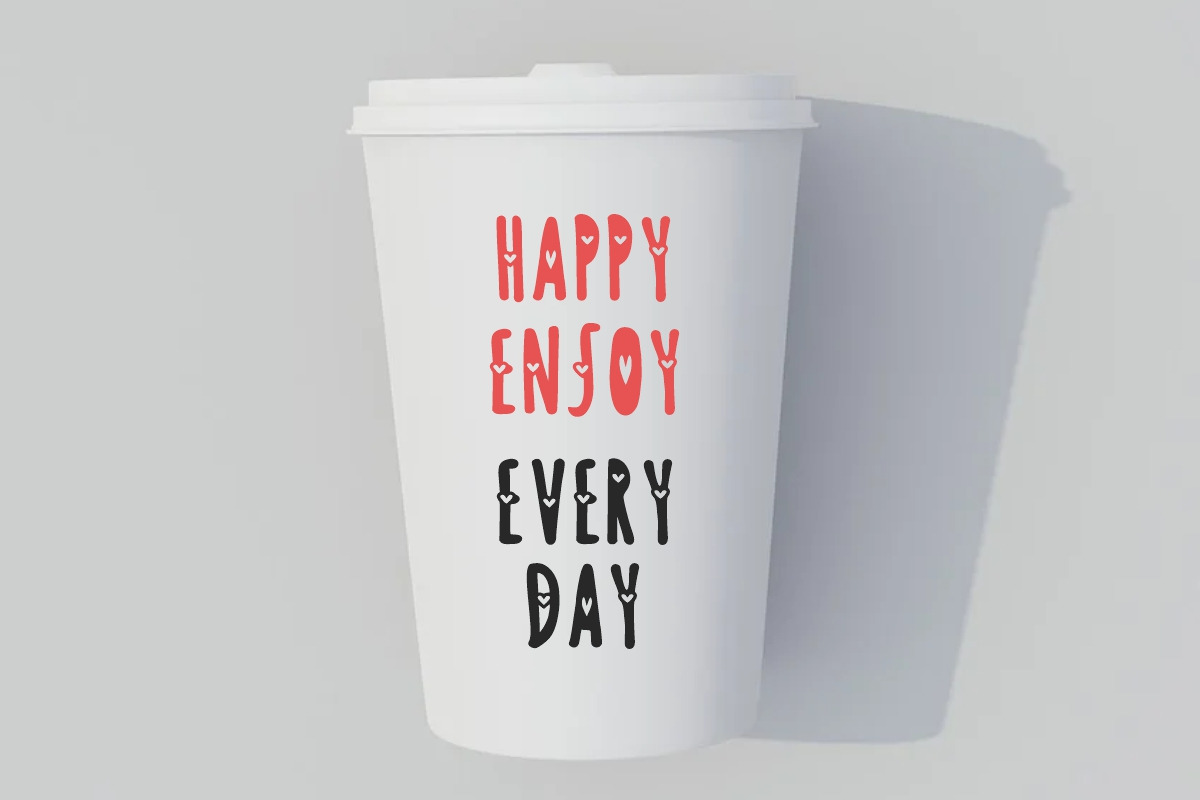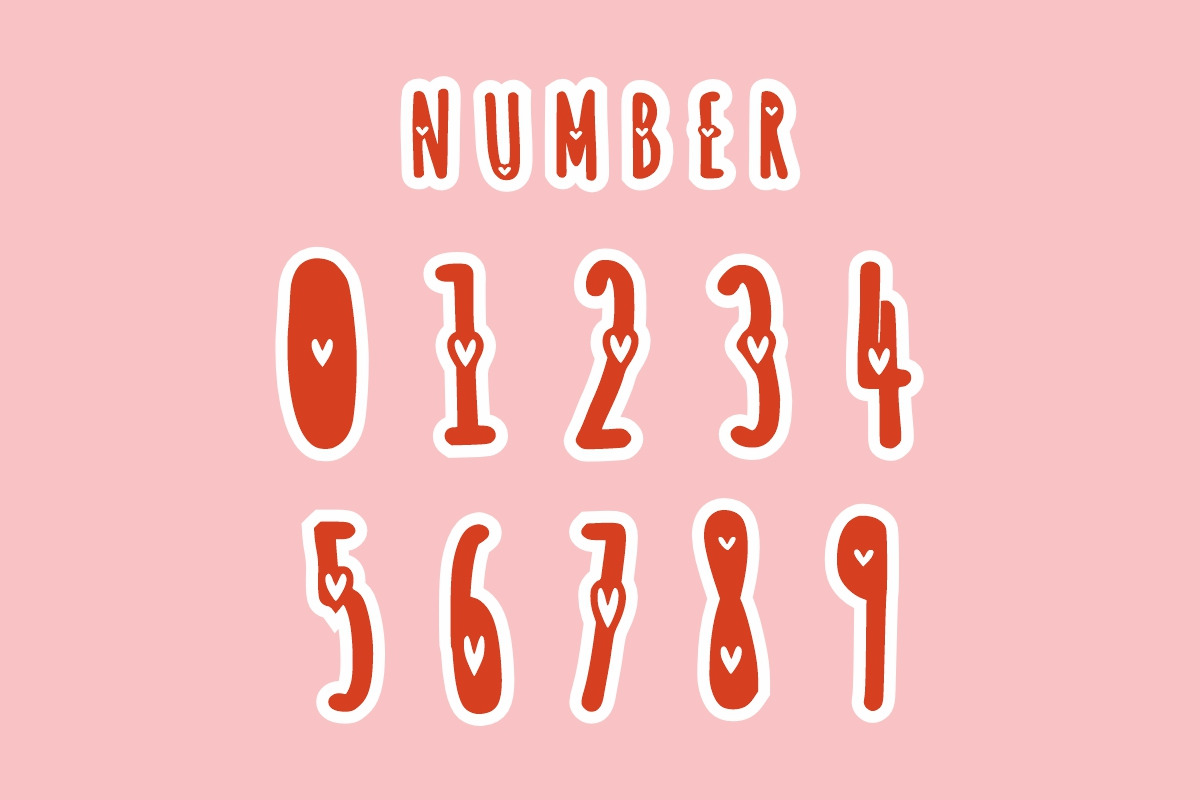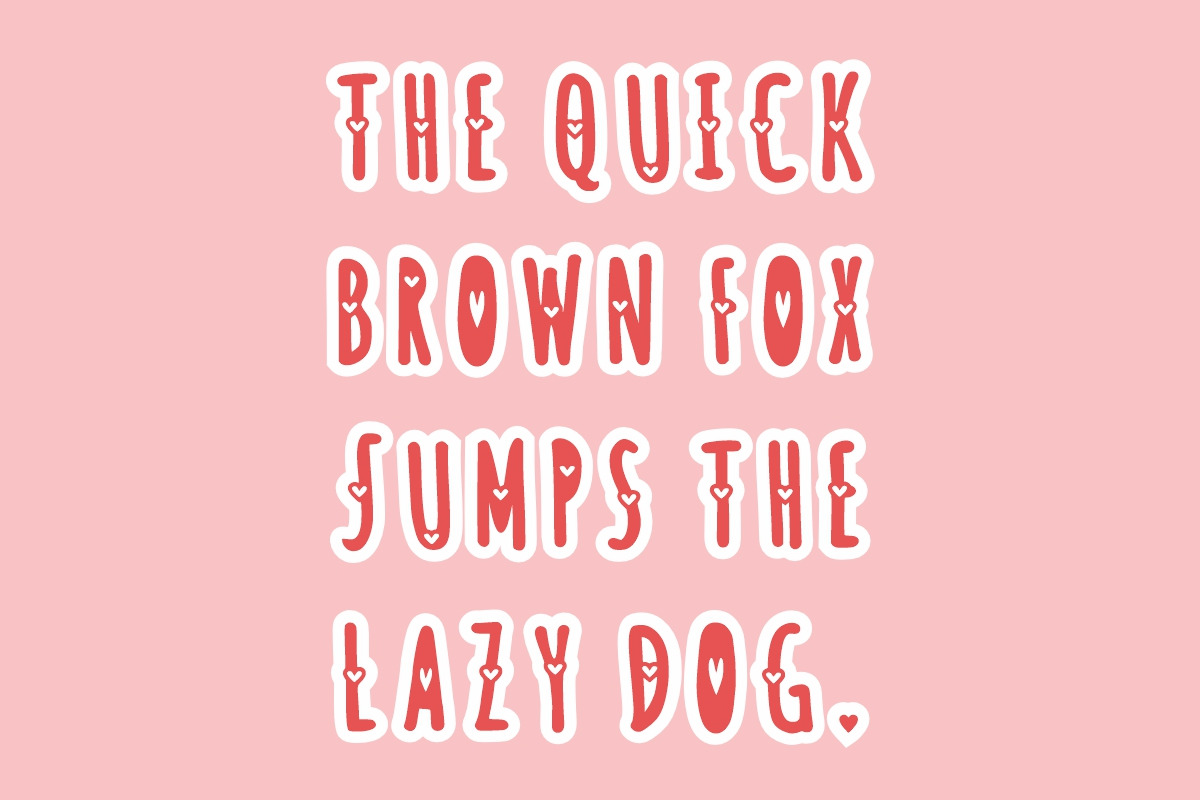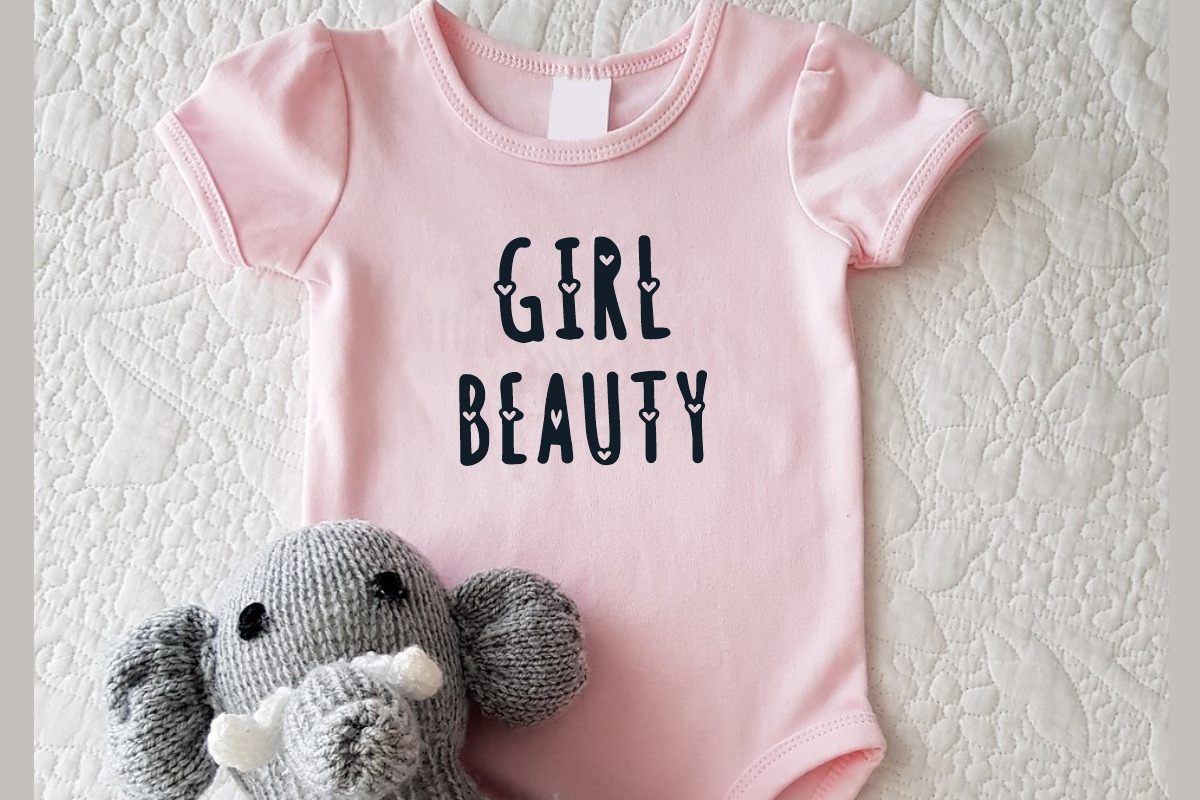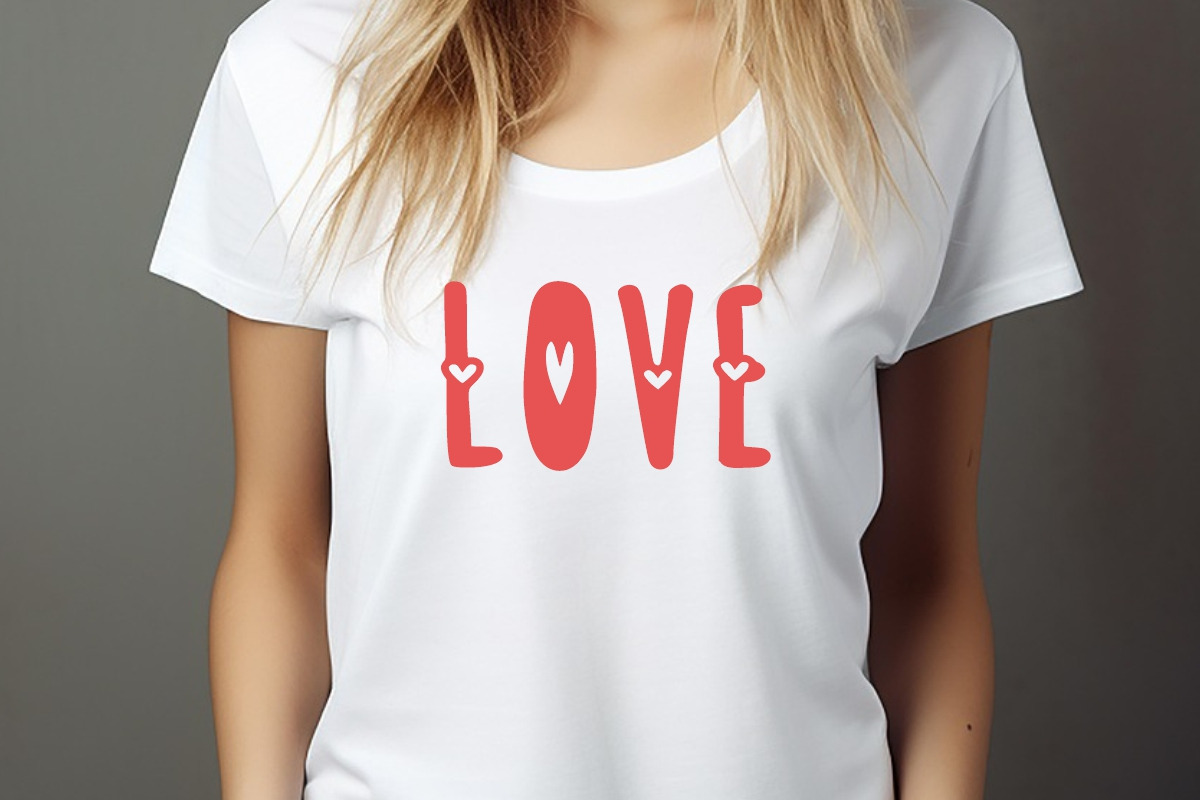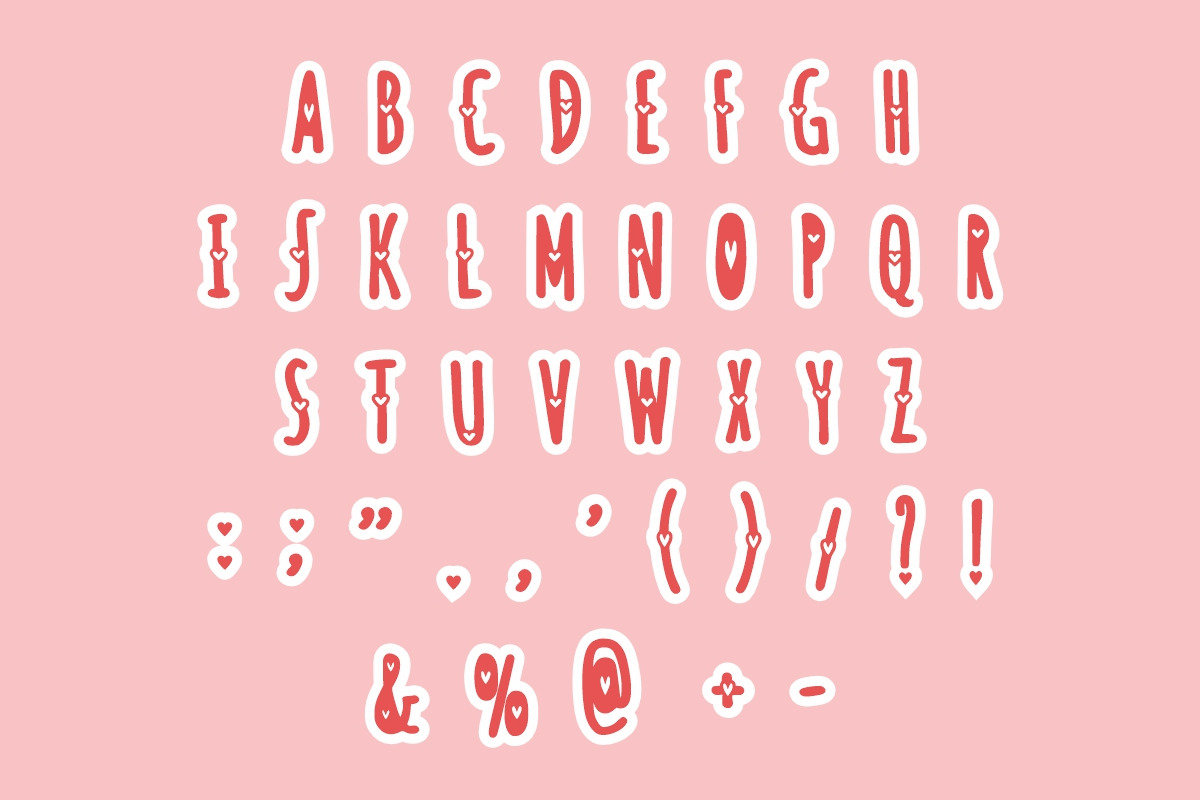
Love Mother
Love Mother is a cute, simple, and funny love font. Its informal style and casual vibe will make this font a go-to choice for each of your creations that require a relaxed touch. It is suitable for any product packaging, invitation, quote, t-shirt, label, poster, logo that you wish to develop!